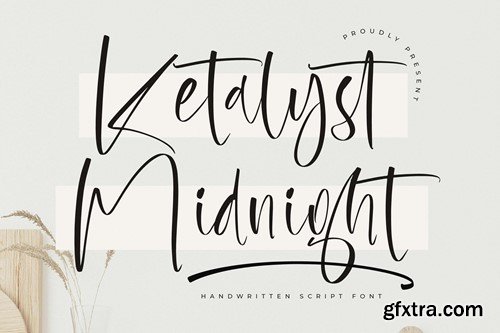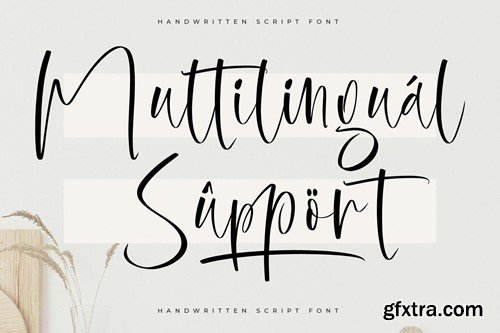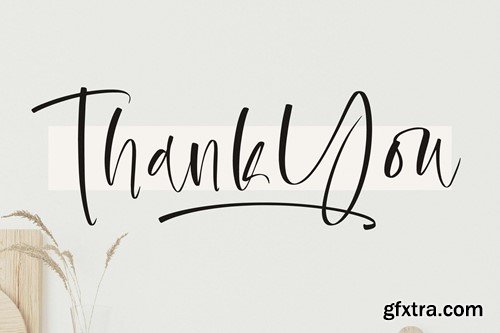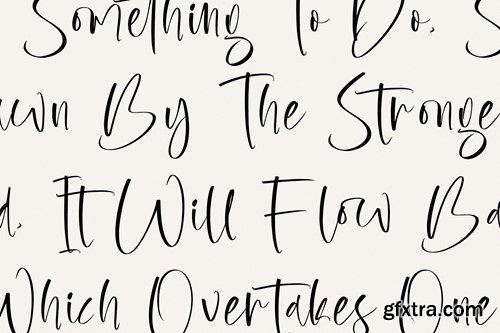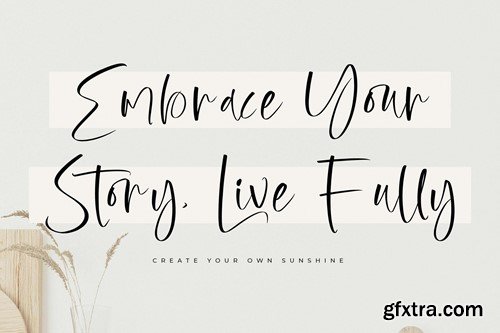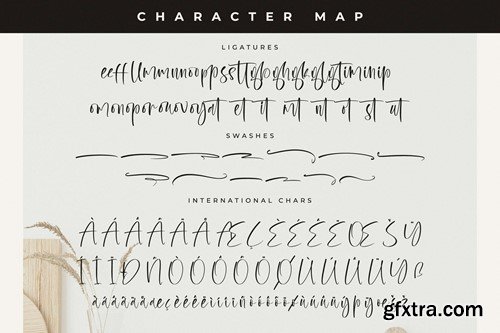
卡特利斯午夜手写体字体 JS83NP9
Ketalyst Midnight Handwritten Script Font JS83NP9
Ketalyst Midnight Handwritten Script Font
Hi ladies & gentlemen, this is one of our fonts suitable to complement your digital and printed creative products. This font is perfect for posters, social media posts, branding, personal projects, etc.